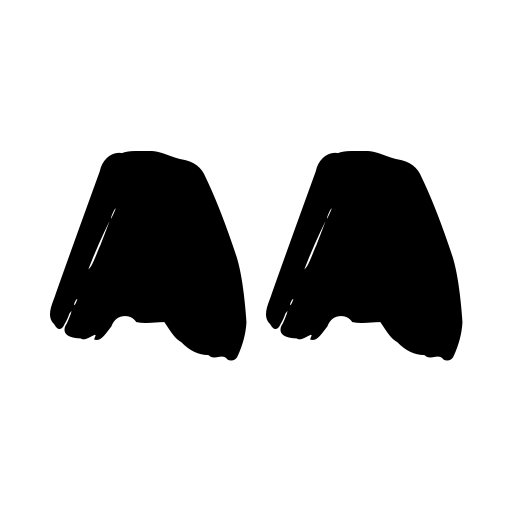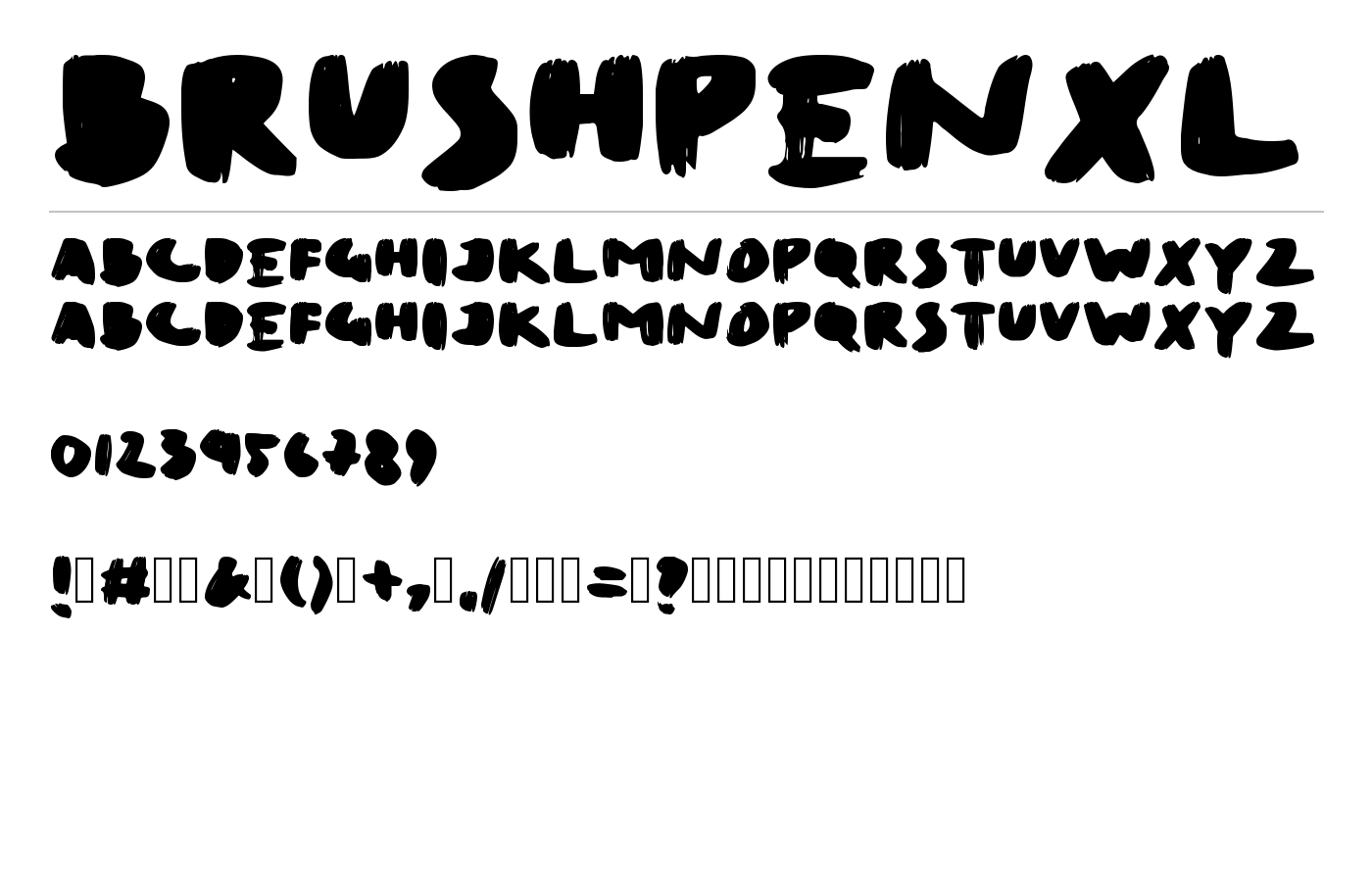
BrushPenXL is a bold, playful brush script font with a hand-painted feel, featuring thick, uneven strokes that give it a dynamic and organic character. Its chunky letterforms and casual style make it perfect for eye-catching headlines, logos, and creative projects where a lively, informal personality is desired. This font works well for designs that need a fun and artistic touch, such as posters, packaging, and branding that aim to stand out and express creativity.
BrushPenXL Font
About BrushPenXL Font